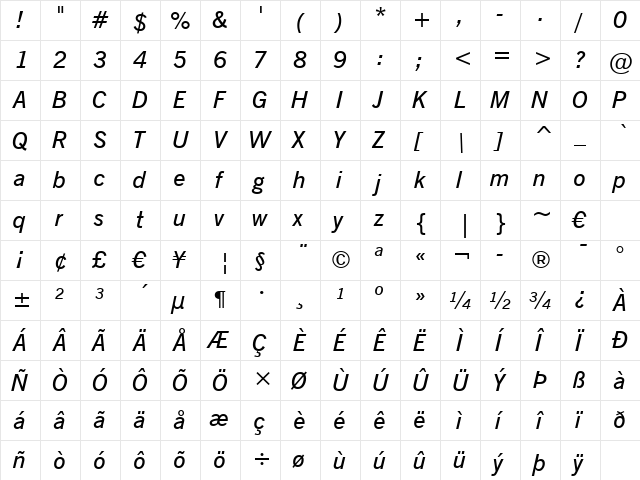
NewsGoth Dm BT Demi Italic
NewsGoth Dm BT is a composed and adaptable typeface that performs quietly and consistently across a wide range of design contexts. The dynamic lean of this cut emphasises speed and emphasis in any layout.
Pro Tip: Use NewsGoth Dm BT for emphasis, pull quotes, and subheadings where its slanted energy can add rhythm to the layout.